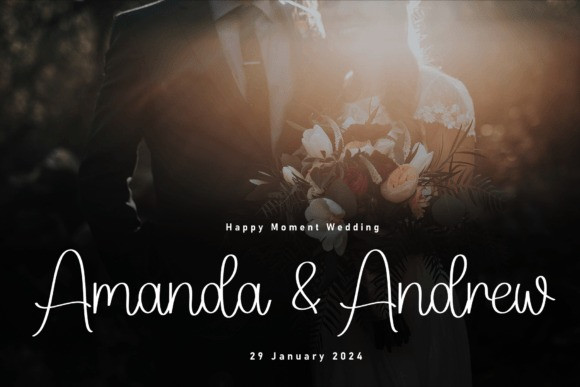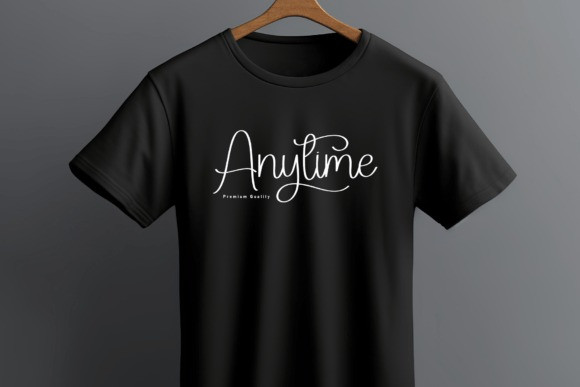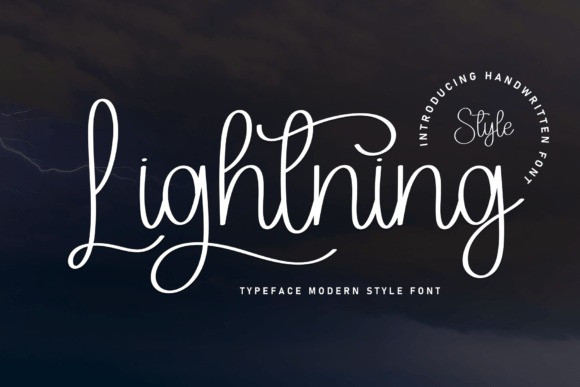
Lightning Font
Lightning Font is a sweet and friendly handwritten font. Its natural and unique style makes it incredibly fitting to a large pool of designs. The only limit is your imagination!